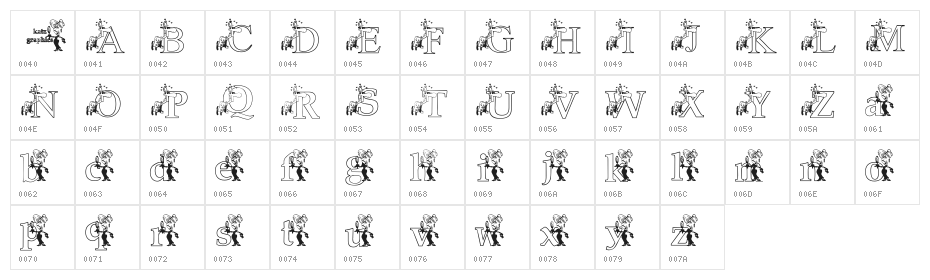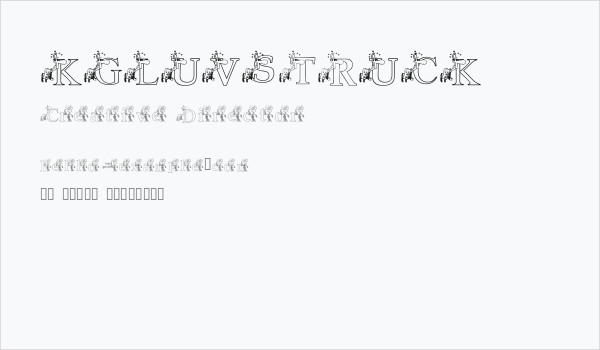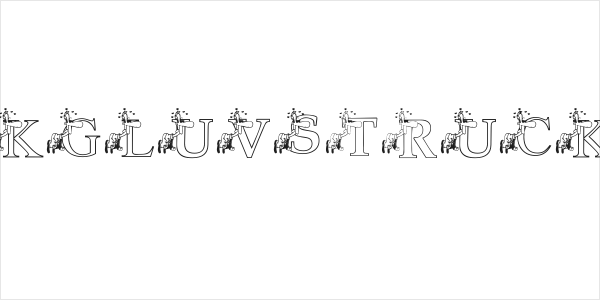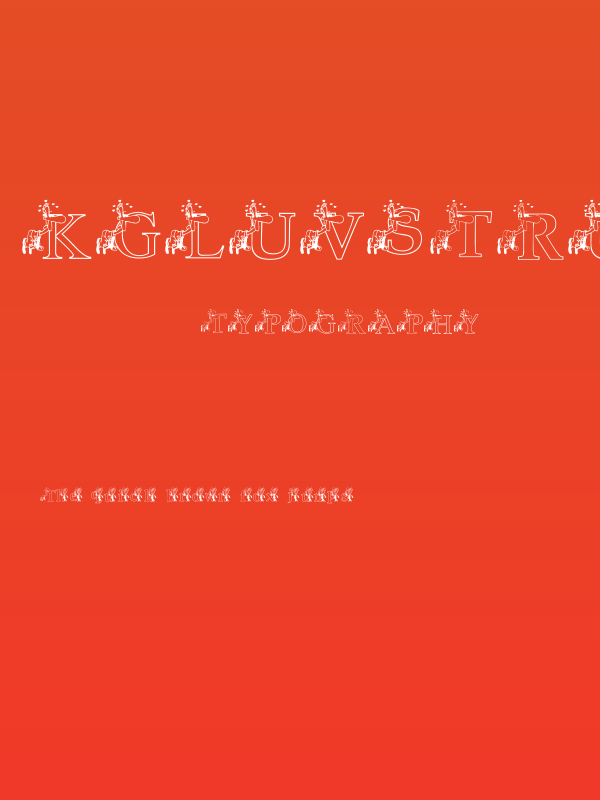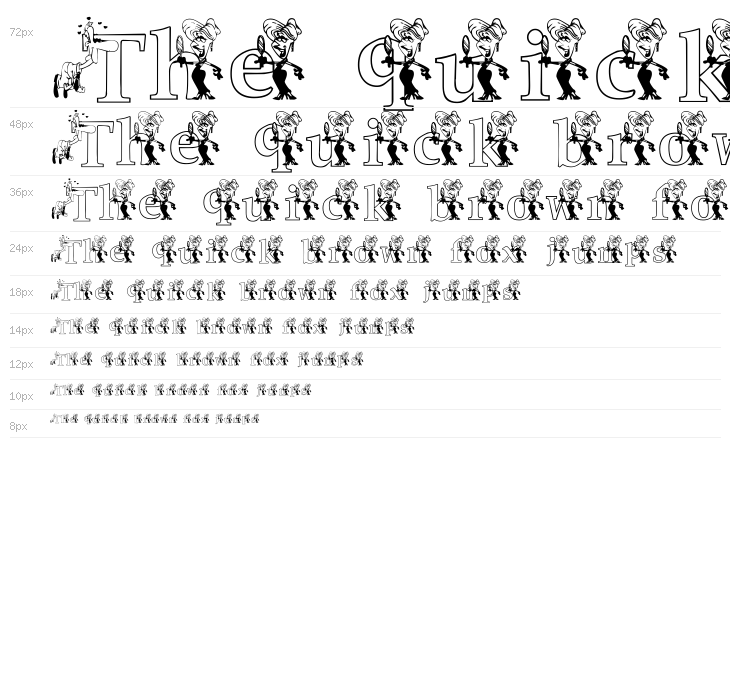
KGLUVSTRUCK Font
KGLUVSTRUCK Description
This whimsical and playful font features characters adorned with charming cartoon figures, adding a delightful and humorous touch to each letter. The design is highly decorative, with each character incorporating an animated figure that interacts with the letterform, creating a lively and engaging visual experience. The font maintains a consistent line weight throughout, ensuring readability while emphasizing its unique artistic flair. The characters are well-spaced, allowing the intricate details of the figures to stand out without overwhelming the text. This font is perfect for projects that require a fun and lighthearted aesthetic.
| Use Case | Logos, Headlines, Decorative text |
| Proposed Projects | Ideal for children's books, playful branding, greeting cards, and party invitations. |